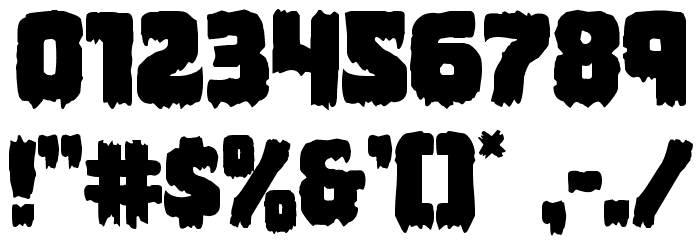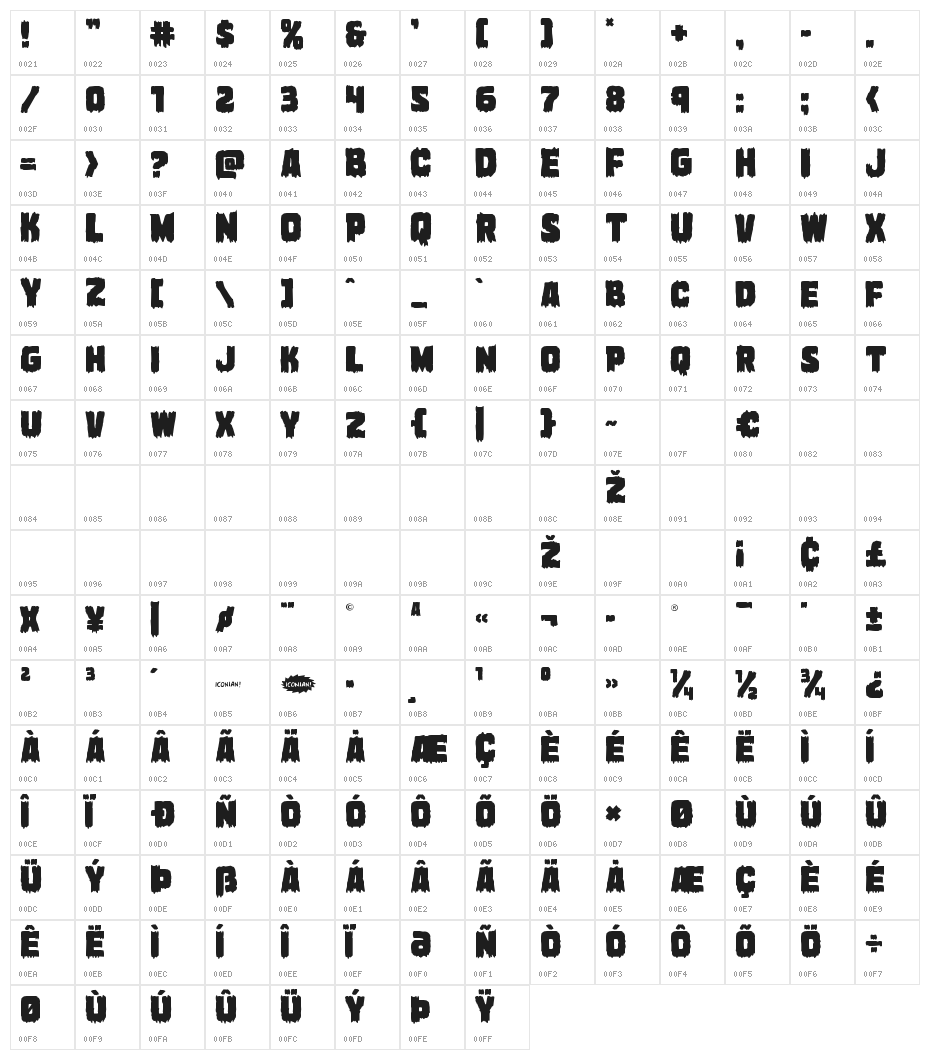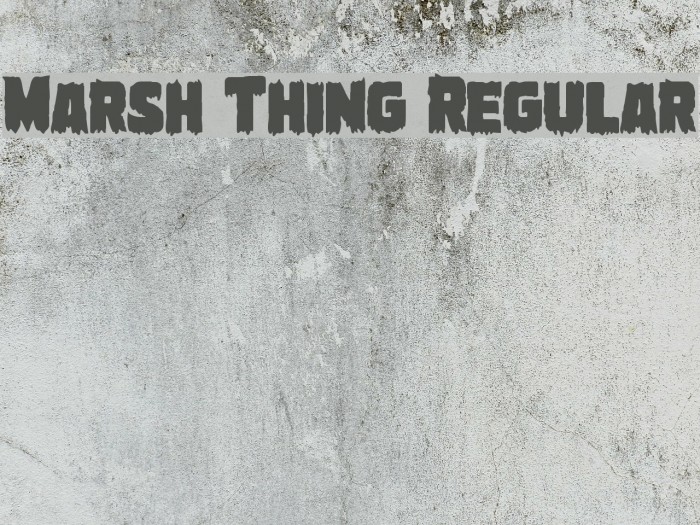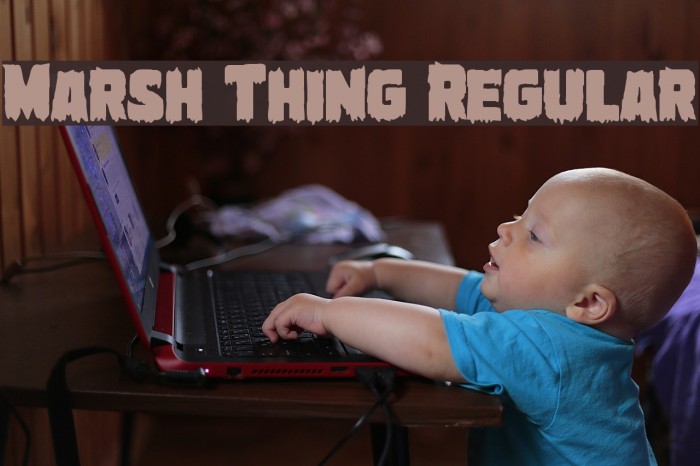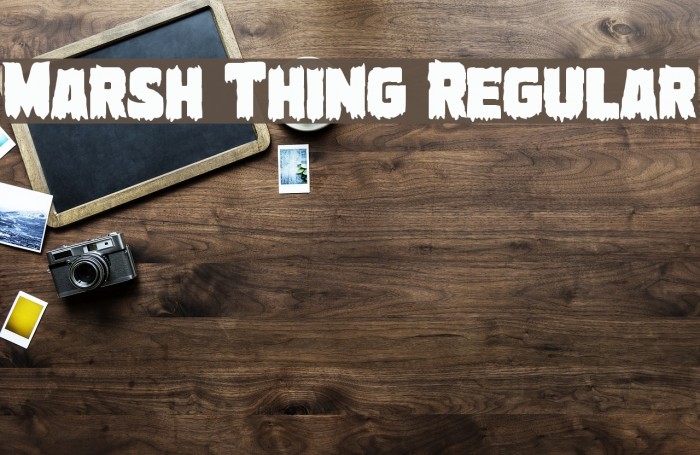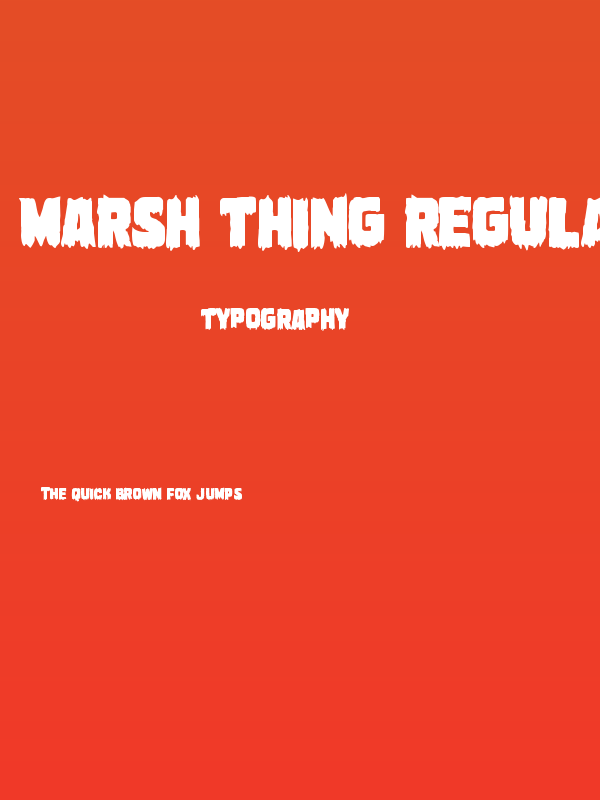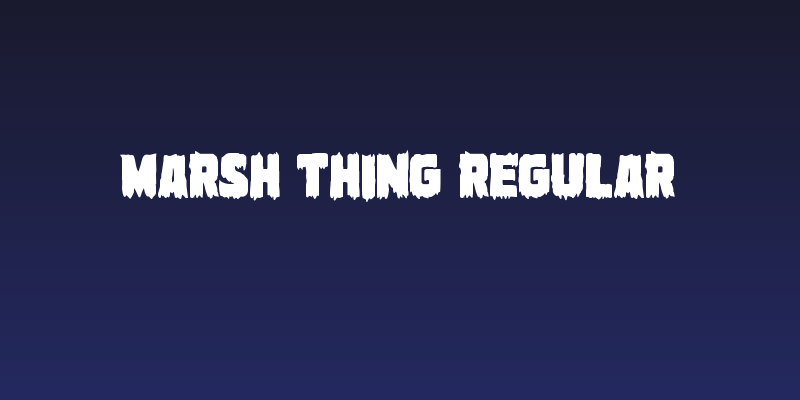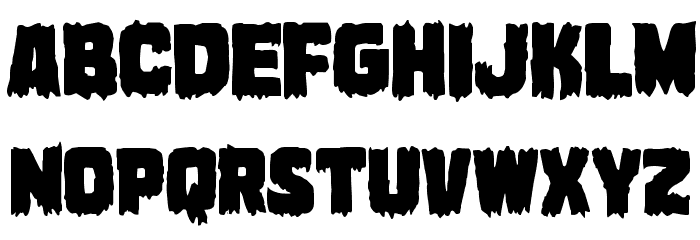
Marsh Thing Regular Font
Marsh Thing Regular Description
This font features a bold and rugged design, reminiscent of swampy or marshy textures. The characters have a distressed and organic appearance, with uneven edges that give a sense of movement and fluidity. The uppercase letters are particularly striking, with a heavy weight that commands attention. The numbers and special characters maintain the same bold and textured style, ensuring consistency across all elements. This font is perfect for projects that require a dramatic and eye-catching look, such as horror-themed designs or nature-inspired graphics.
| Proposed Projects | Ideal for horror movie posters, Halloween invitations, nature-themed graphics, and bold branding projects. |